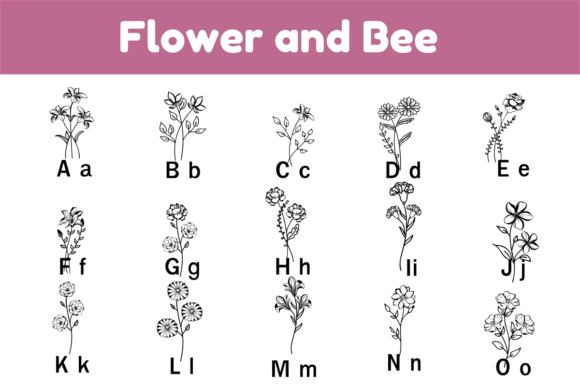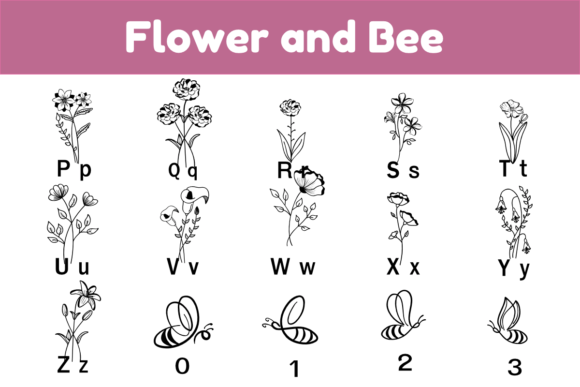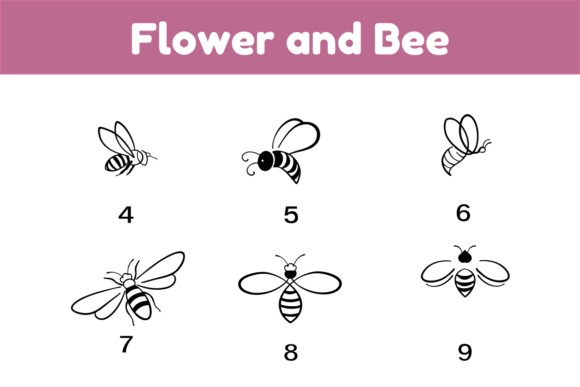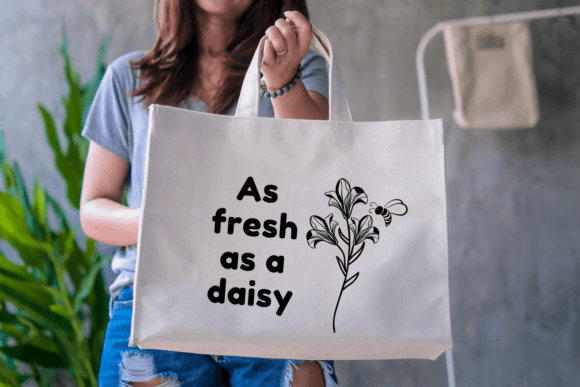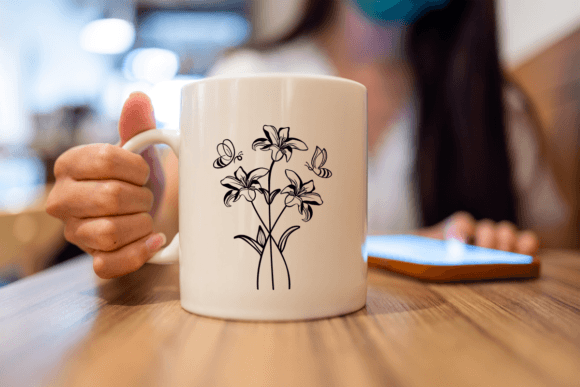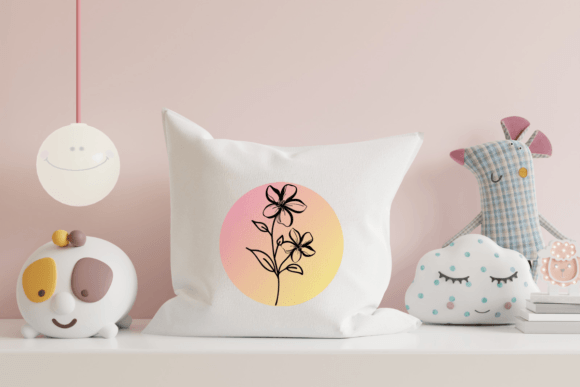
Getting Your Hands on the Perfect Floral Touch
As a designer, there’s nothing quite like the feeling of finding the perfect font to bring your creative vision to life. You’re brainstorming ideas for a new project, and suddenly, a burst of inspiration strikes – a whimsical floral theme, perhaps, or a playful bee buzzing around a sunflower. The possibilities are endless, and the right font can make all the difference.
Enter the Flower and Bee Font, a charming dingbat font that’s sure to add a decorative touch to your projects. With its unique design, each character represents a different flower, making it a valuable tool for designers looking to create cute, floral-themed designs. Whether you’re designing a wedding invitation, a children’s book, or a social media graphic, this font is sure to bring a smile to your face and a touch of elegance to your work.
Key Features of Flower and Bee Font
- Font Family: Flower and Bee is a unique, hand-drawn font designed to resemble flowers and bees, perfect for creating whimsical and playful designs.
- Character Count: The font contains over 500 characters, including uppercase and lowercase letters, numbers, punctuation marks, and special characters.
- Unique Characteristics: The font’s hand-drawn design and playful style make it ideal for creating eye-catching and engaging designs, such as invitations, greeting cards, and children’s books.
Designer Review: Flower and Bee Font
Flower and Bee Font is a whimsical and charming font that’s perfect for adding a touch of nature to your designs. ✨ The use of curved lines and floral motifs creates a sense of warmth and friendliness, making it ideal for projects like children’s books, garden-inspired designs, or even wedding invitations. ✨ The font’s playful feel is also well-suited for digital products like social media graphics or web animations.
However, there are some limitations to consider: ⚠️ The font may not be the best choice for projects that require a high level of professionalism or sophistication, as its playful nature may come across as immature. ⚠️ Additionally, the font’s curves can sometimes make it difficult to read at small sizes, which may impact its usability in certain contexts.
- Whimsical and charming design
- Perfect for nature-inspired or children’s projects
- Playful feel ideal for digital products
- Curved lines may impact readability at small sizes
Overall, Flower and Bee Font is a lovely addition to any designer’s toolkit, but it’s essential to consider its limitations and potential applications before using it in your next project.
Tip: Use the Flower and Bee Font to create whimsical and playful designs for social media graphics, flyers, and posters.
Tip: Use the Flower and Bee Font to create custom illustrations and graphics for branding and marketing materials.
The Flower and Bee Font is perfect for:
- Social media graphics and flyers
- Children’s books and educational materials
- Wedding invitations and decorations